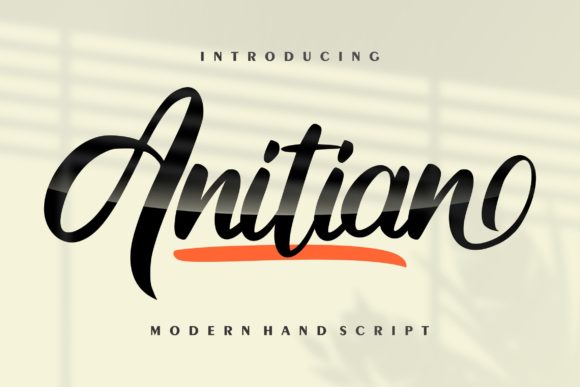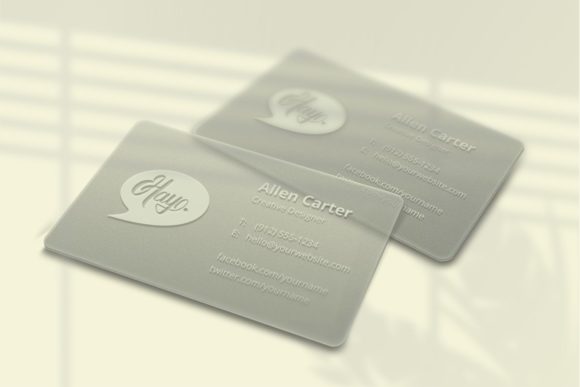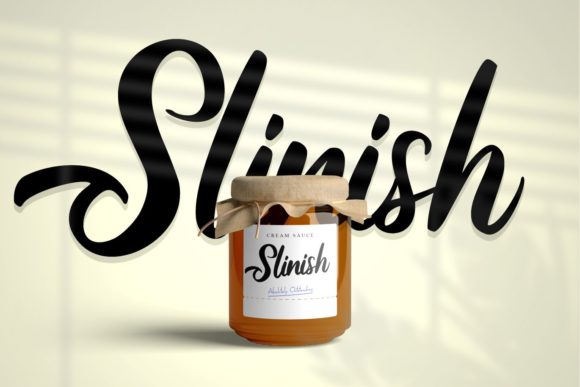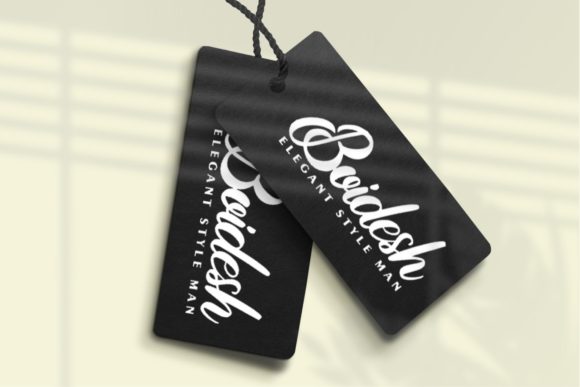
About Anitian Font
Anitian is a cursive and bold handwritten font, crafted to give your headlines and logotype projects a stylish touch. This font reads as strong, confident, and dynamic and can add tons of nostalgic character to your designs.